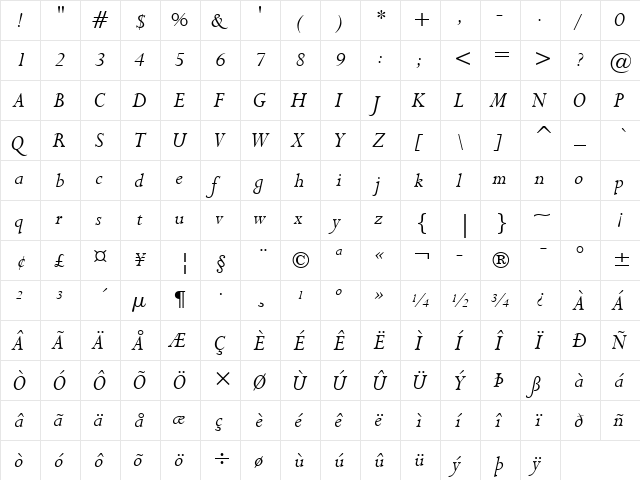
Lapidary333 BT Italic
Design Context for Lapidary333 BT Typeface
Lapidary333 BT offers clean, dependable letterforms without strong stylistic allegiance, making it a practical choice for designers who need flexibility. Its italic angle brings a sense of urgency and motion to the letterforms.
Pro Tip: Try Lapidary333 BT for annotation and caption copy alongside an upright companion — the contrast in angle creates a dynamic but ordered typographic system.